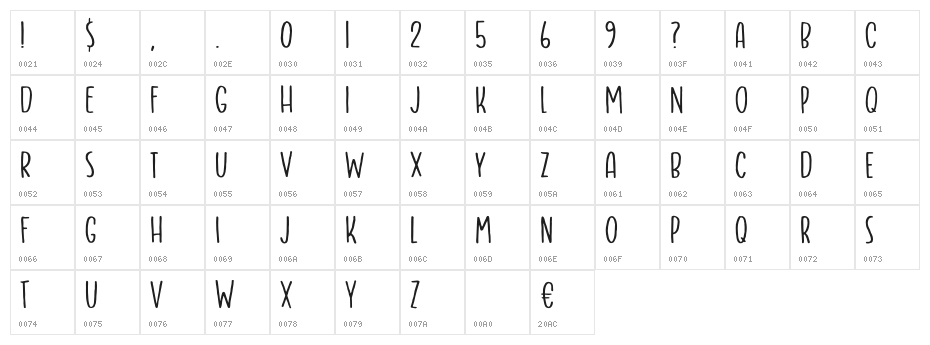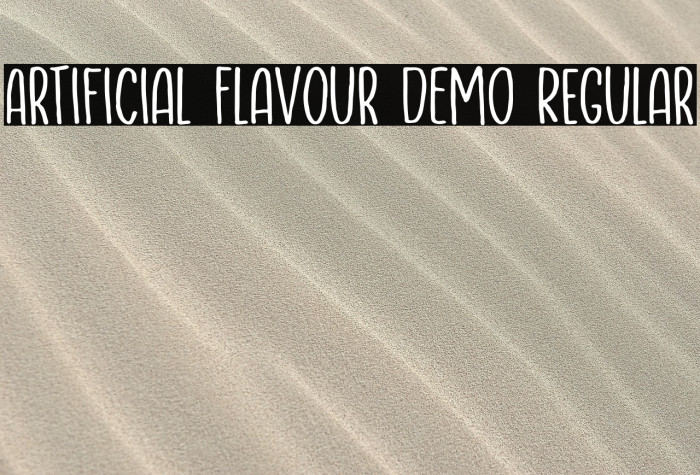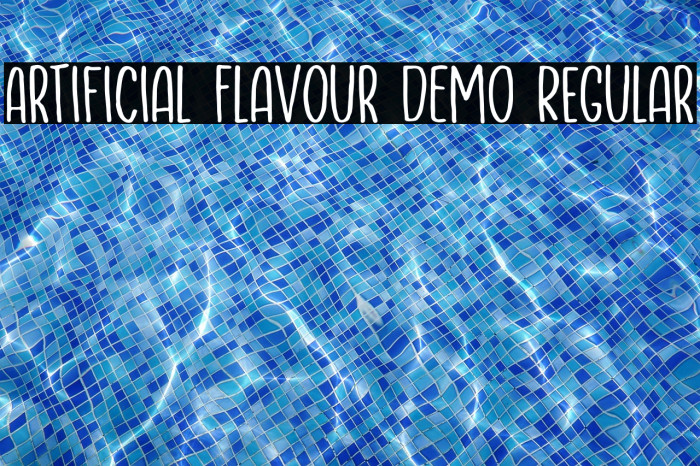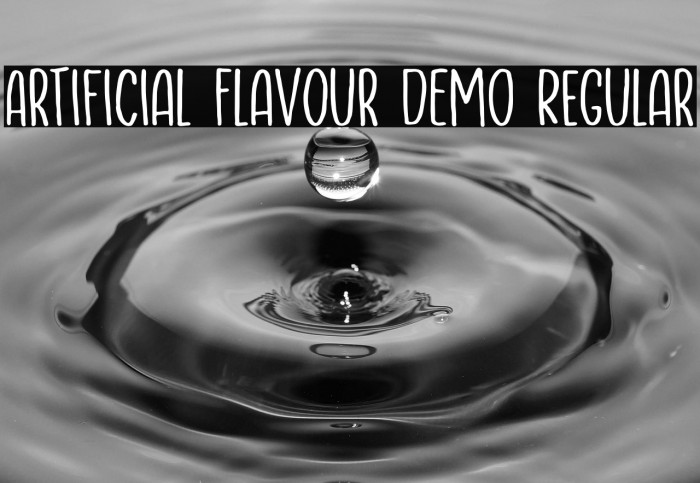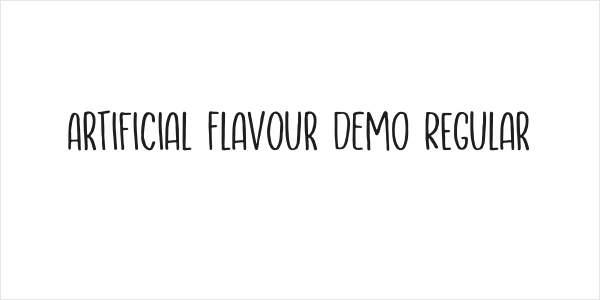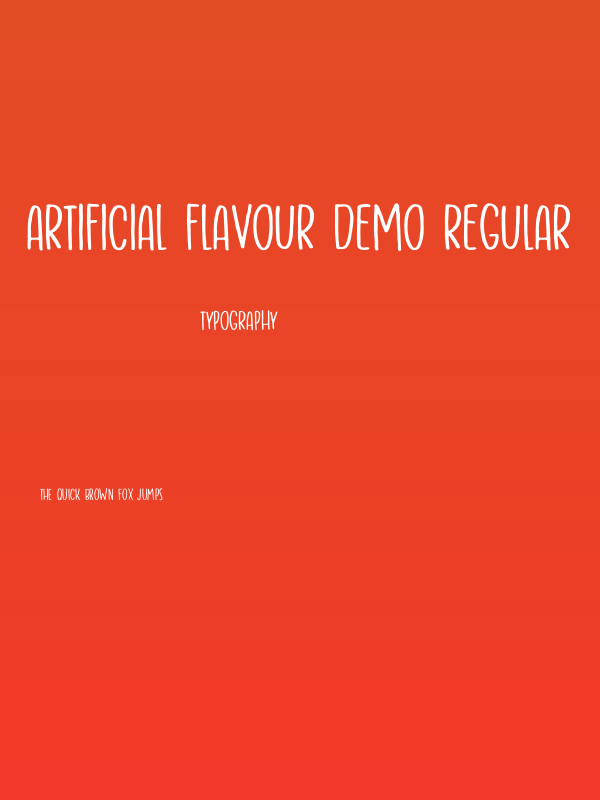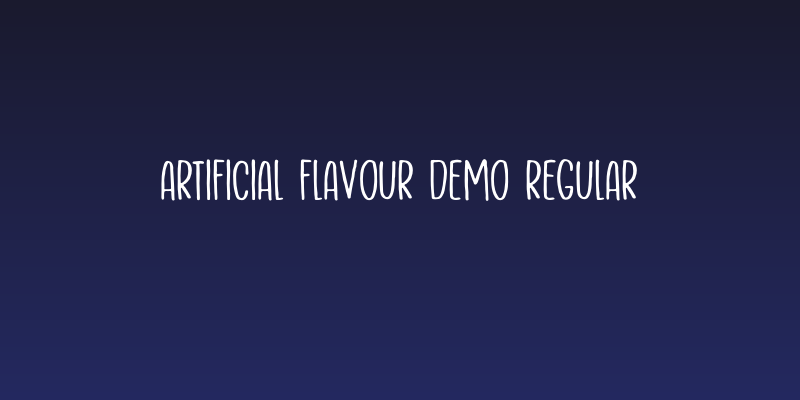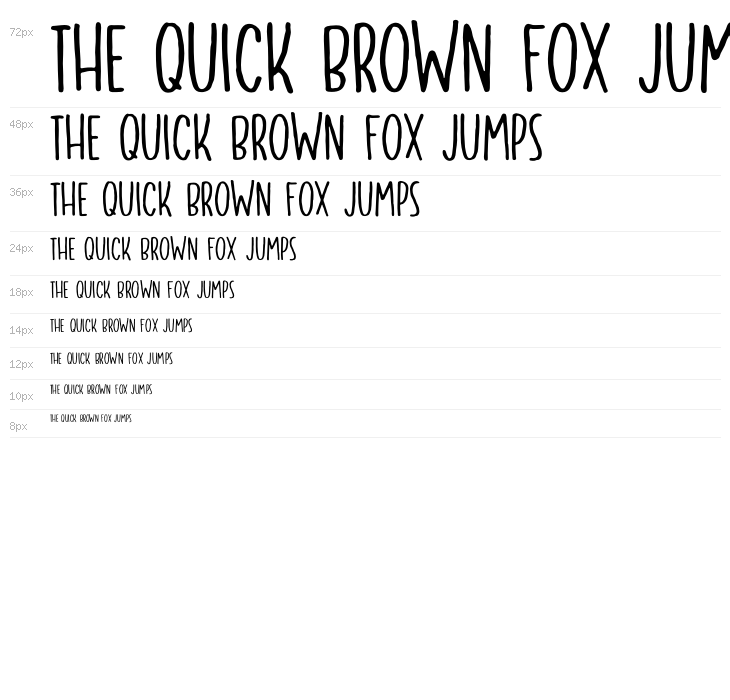
Artificial Flavour DEMO Regular Font
Artificial Flavour DEMO Regular Description
This playful and quirky font features tall, narrow letters with a hand-drawn aesthetic, giving it a casual and informal feel. The characters are slightly irregular, adding to the charm and uniqueness of the style. The font includes a mix of uppercase and lowercase letters, numbers, and a selection of special characters. The inclusion of flask-like symbols adds a whimsical touch, making it ideal for creative and fun projects. The overall appearance is friendly and approachable, perfect for designs that aim to convey a sense of humor or creativity.
Proposed ProjectsIdeal for children's books, creative posters, playful branding, and informal invitations.